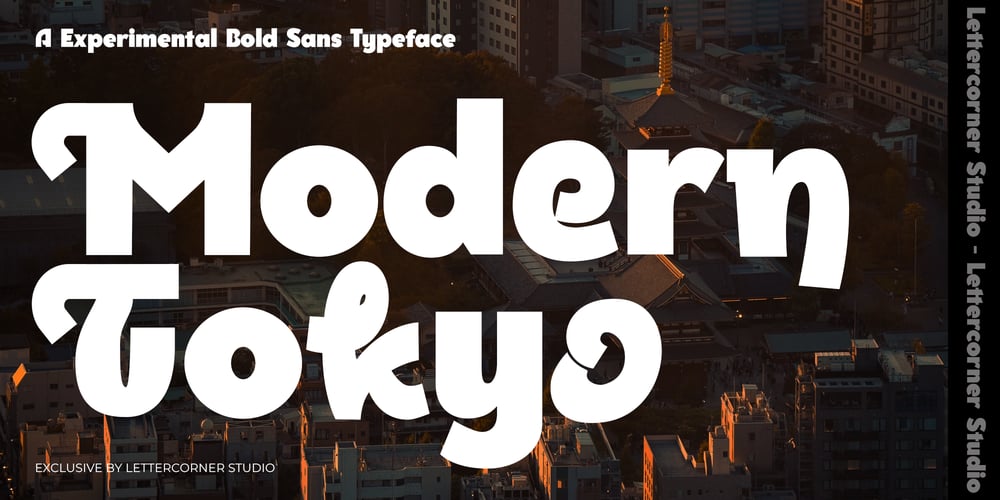
Modern Tokyo Font Family was designed by Muhammad Afif Ersya and published by Mevstory Studio. Modern Tokyo contains 2 styles and family package options. Modern Tokyo is an experimental sans serif font . Its unique structure combines bold lines and unexpected curves, bringing a fresh perspective to modern typography. Each character is meticulously crafted, resulting in a font that balances between clarity and creative exploration. Perfectly suited for contemporary branding, editorial layouts, and digital media, Modern Tokyo captures attention with its unconventional design while maintaining readability.In addition to its modern aesthetic.Modern Tokyo offers a variety of stylistic alternatives, making it adaptable for diverse visual needs. Its versatility shines in both large display settings and smaller text applications, where its distinct characteristics add personality without overwhelming the reader. Shinier stands as an excellent choice for designers seeking a font that’s both experimental and functional, embodying innovation and elegance in every stroke.